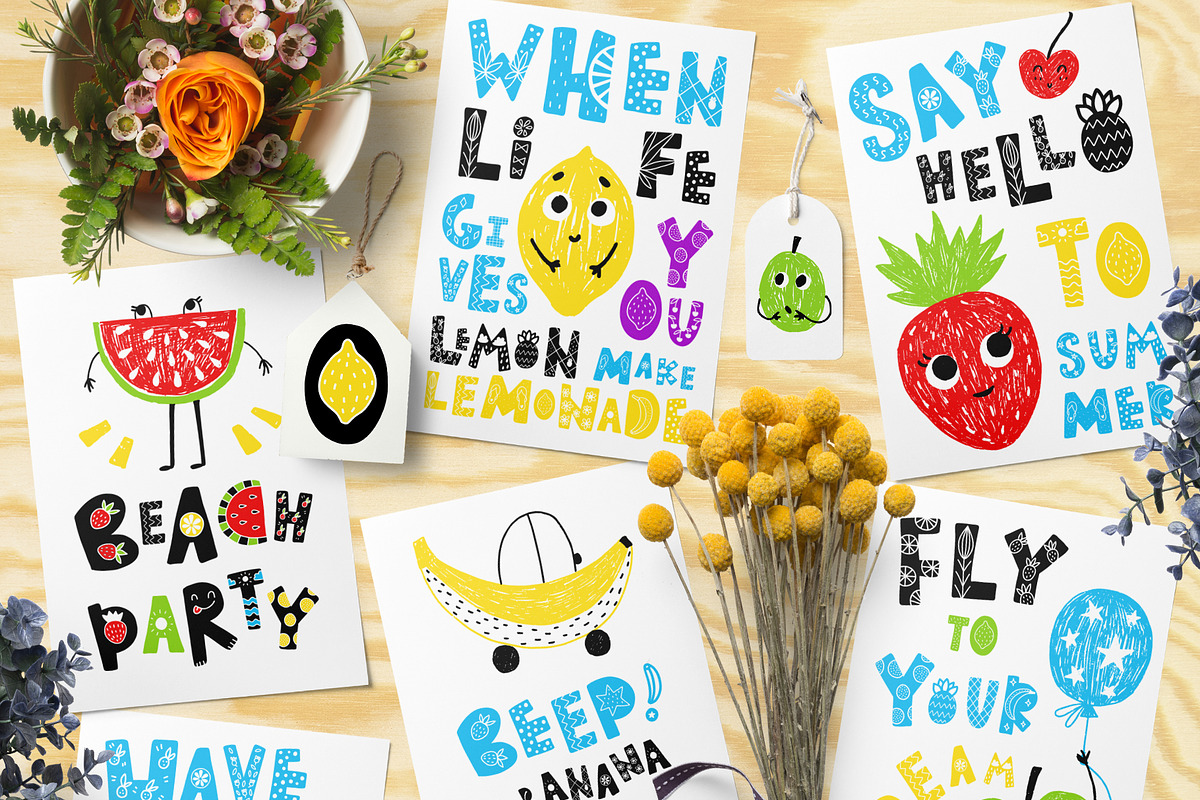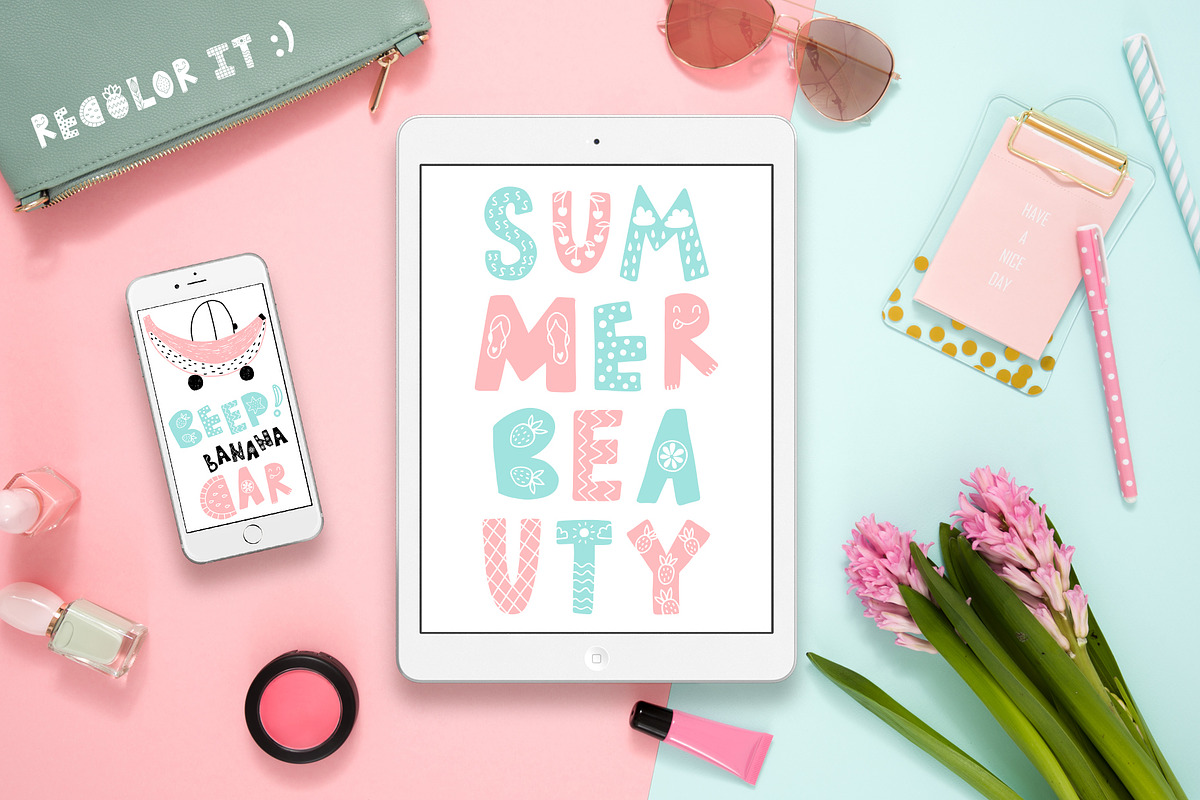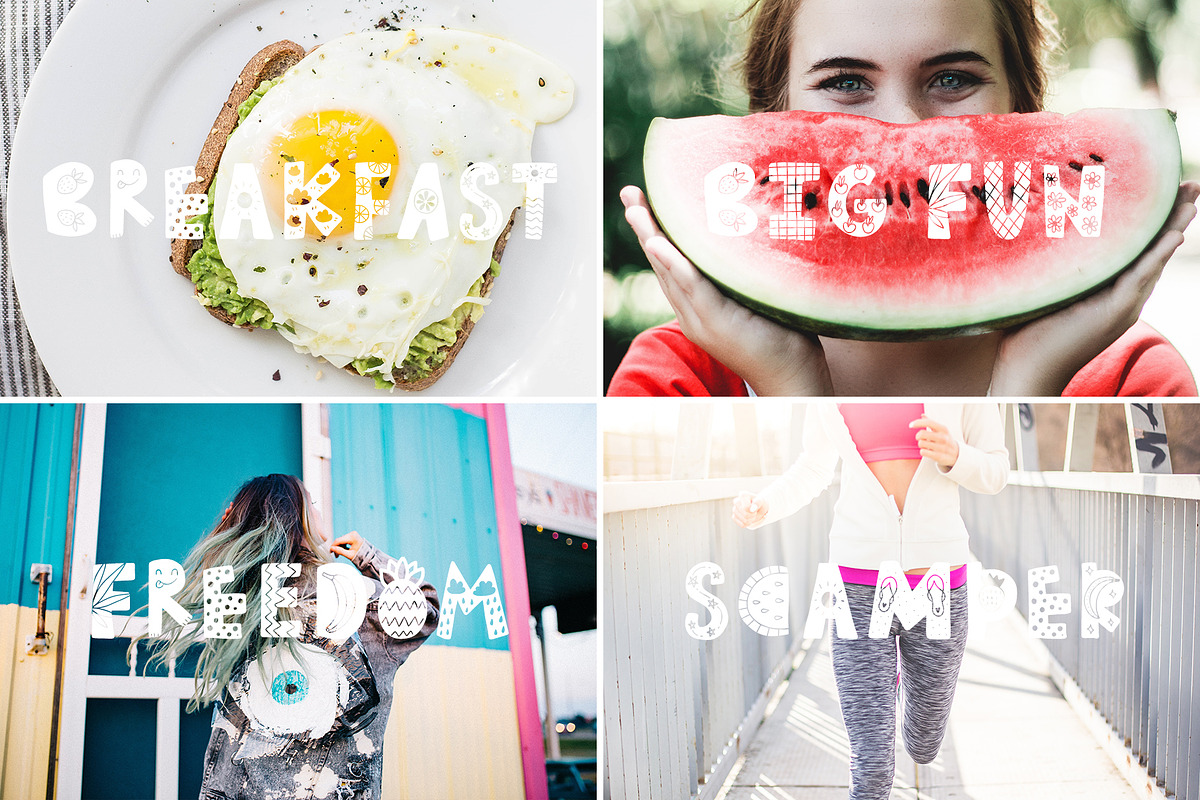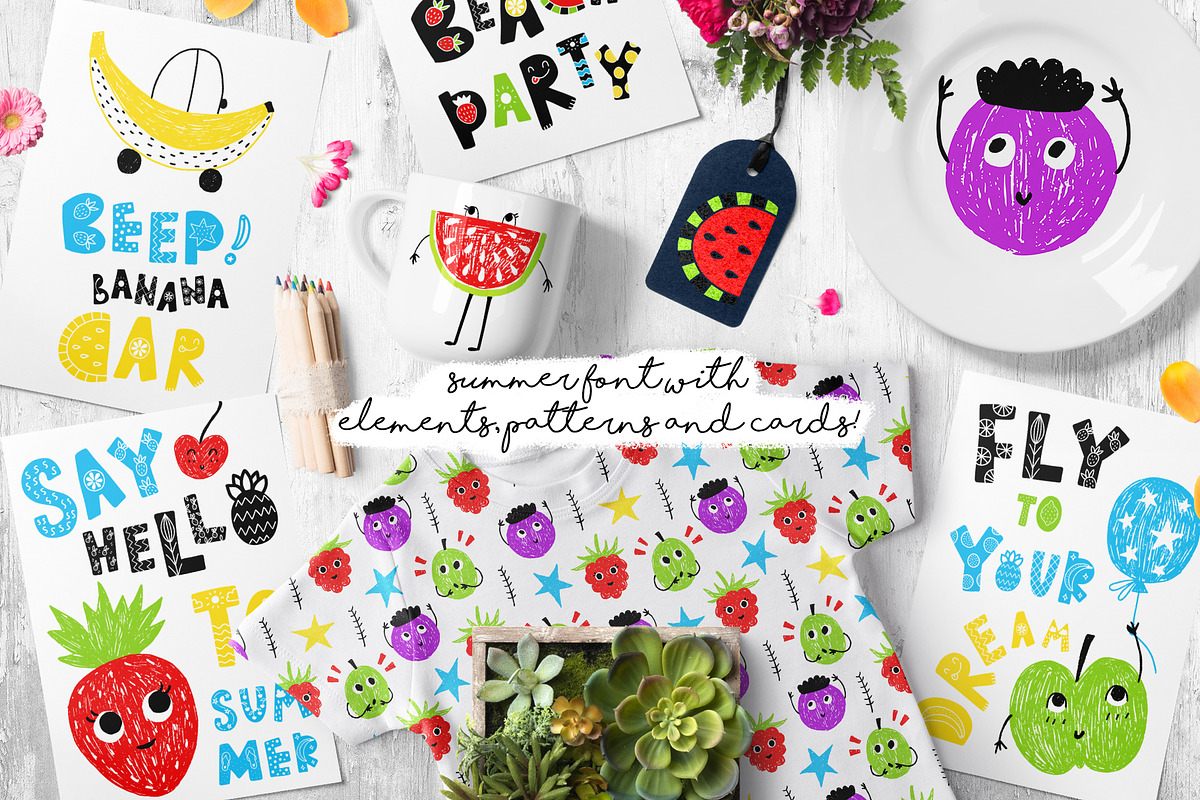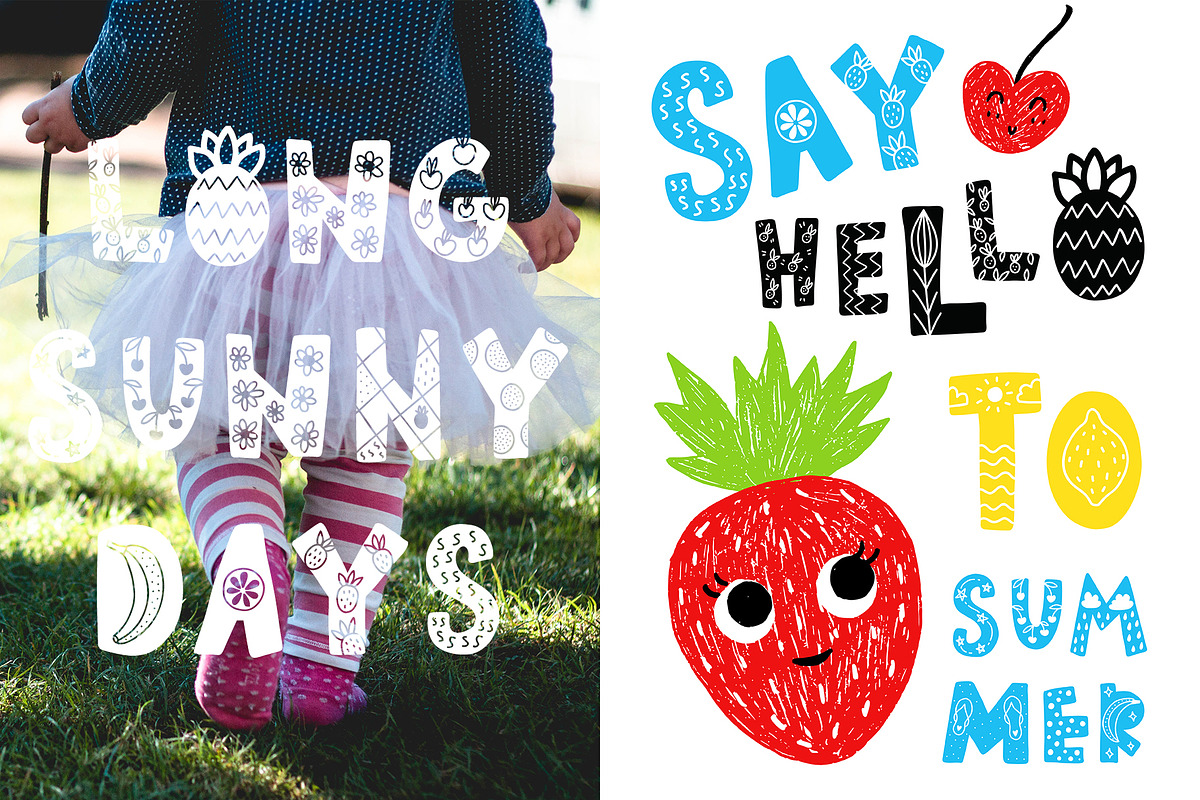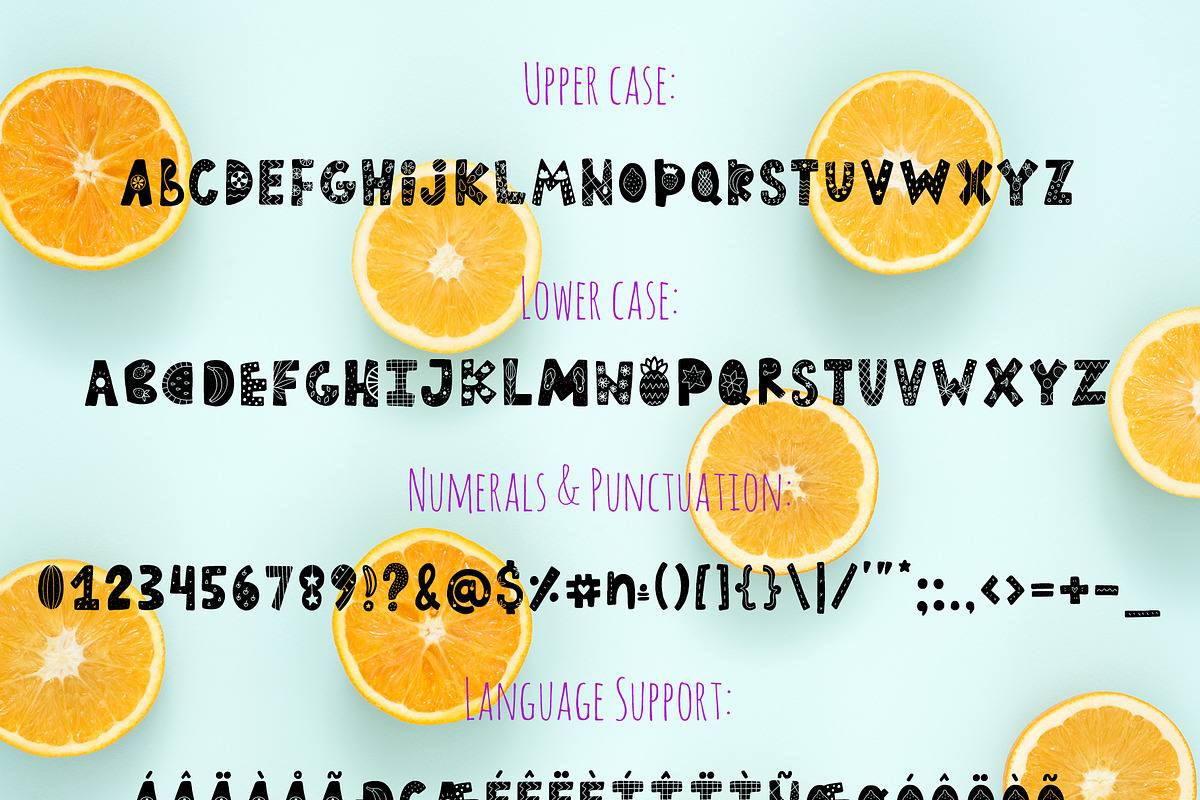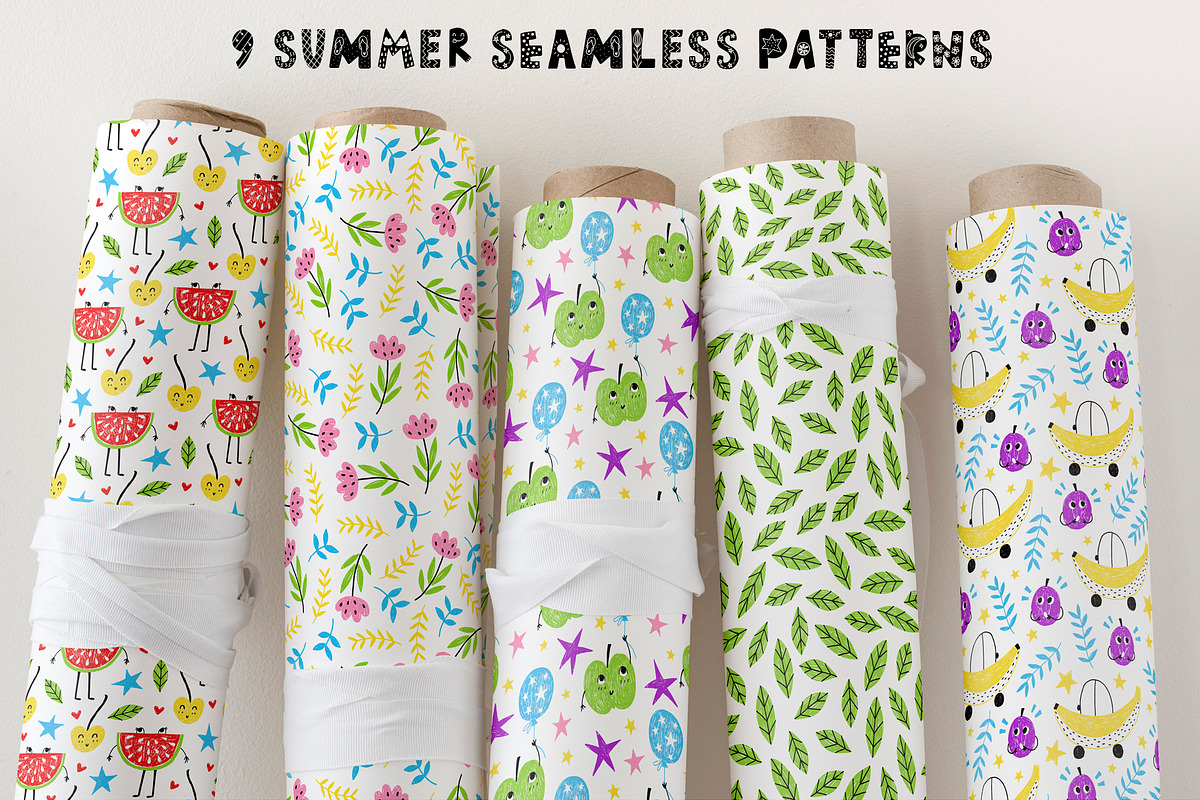
Summer Day Typeface with Clipart!
I am pleased to present you my new typeface - Summer Day! This time he is made in a fun style, and the theme is summer. Summer is coming soon! And this font will help you make wonderful projects. Just install the font on your computer and use it!
Make cards, posters, phrases on T-shirts and on other clothes!
For your inspiration, I included not only fonts, but also illustrations, as well as ready-made postcards and seamless patterns! Combine the elements with the font and you will get wonderful products!
Get ready for the summer right now!
It has upper and lower case letters, numbers, special characters, accents.